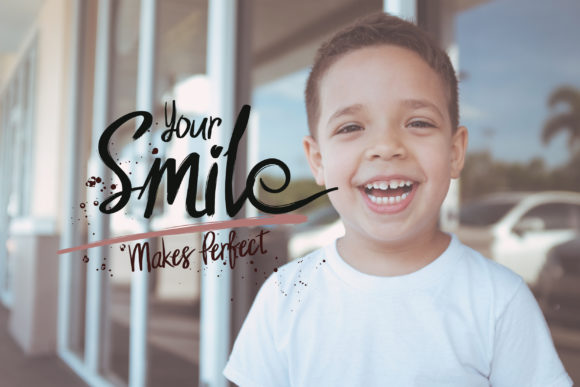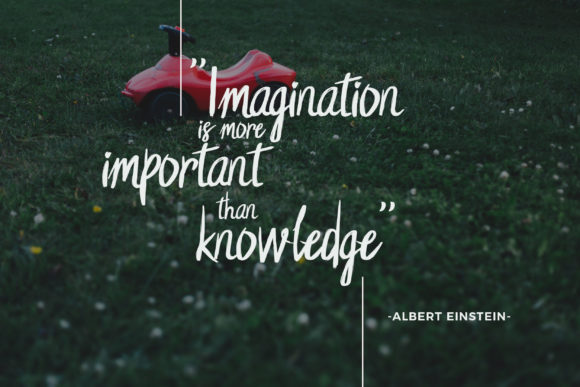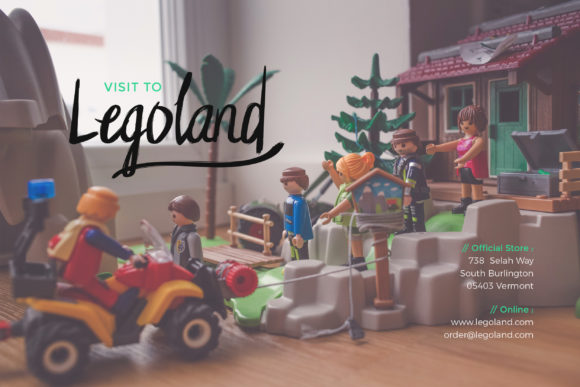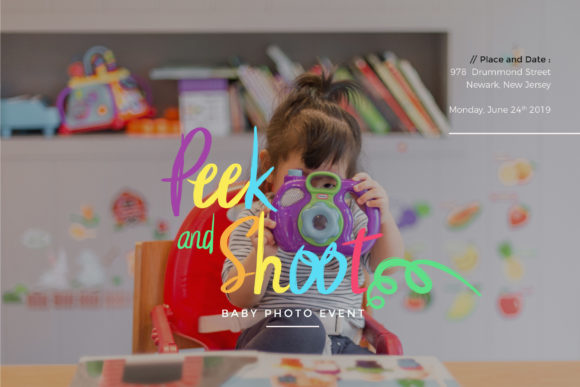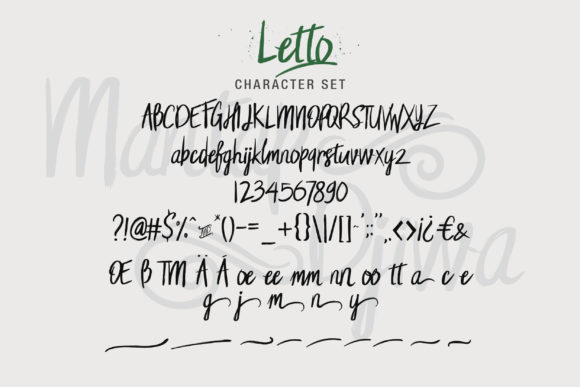
HomeScript FontsLetto Font Script Fonts Letto Font FacebookXPinterestWhatsApp Letto Font Poster 2 Letto Font Poster 3 Letto Font Poster 4 Letto Font Poster 5 Letto Font Poster 6 About Letto Font Letto is a fun and casual handwritten font with a bold feel. Use it to turn any design project into an eye catcher! DOWNLOAD ON CREATIVE FABRICAThis font is sold and delivered by Creative Fabrica. Font Canyon may earn a commission if you buy through this link. People also explored Megambe Script Selira Font Sport Ngequize Font Amora Script Font Topbelt Font Sebasta Font Zombis Night Font Unselfish Font Shelly 284 0 TagsLetto Font Previous articleMelyana FontNext articleAliyah Font LEAVE A REPLY Cancel reply Comment: Please enter your comment! Name:* Please enter your name here Email:* You have entered an incorrect email address! Please enter your email address here Website: Save my name, email, and website in this browser for the next time I comment. Personal Use Free Spectrashell Personal Use Free Read more about this font Omellia Personal Use Free Read more about this font Puisi Adinda Personal Use Free Read more about this font BD Algebra Personal Use Free Read more about this font BLOG Transform Your Website: Elevate Your Typography with 7 Best Web Font Generators Are you ready to transform your website's typography from ordinary to extraordinary? Great! Today, we're diving into the world of web font generators, which... Free Fonts Risk: Why Free Fonts Can Be Dangerous for Designers Modern Sans-Serif Fonts That Brands Love in 2025 How to Cut Any Font on Cricut: Convert a Font to SVG (Free)